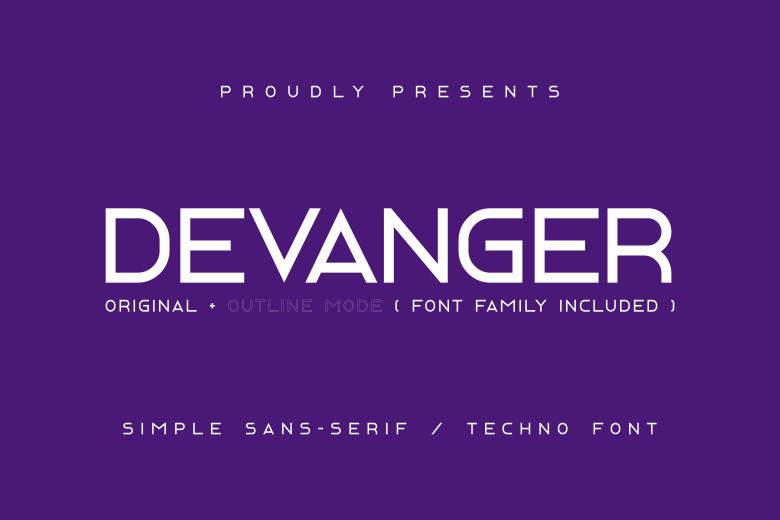
Devanger Font
Devanger is a very modern sans-serif. With clean lines and a fresh design, Devanger keeps drawing crowds to pick up its pace. Ideal for branding, editorial design – every project that needs a hint of elegance yet is to-the-point.
Devanger Sans Serif Font